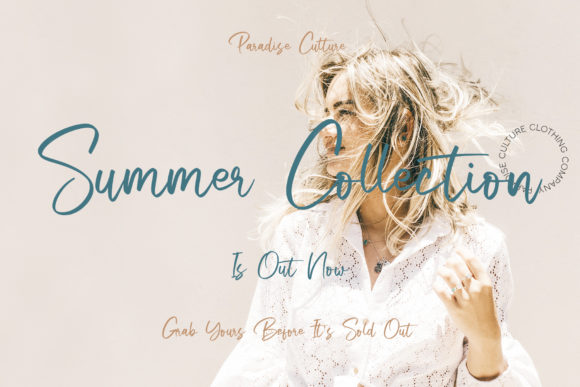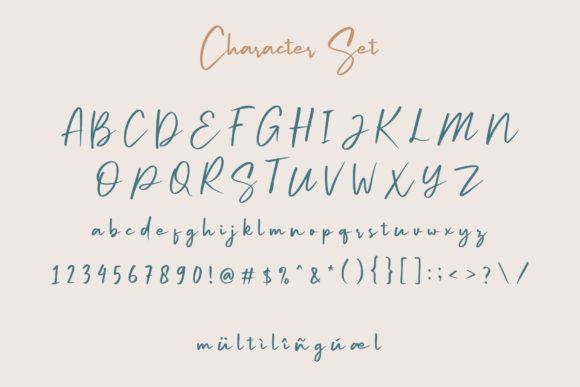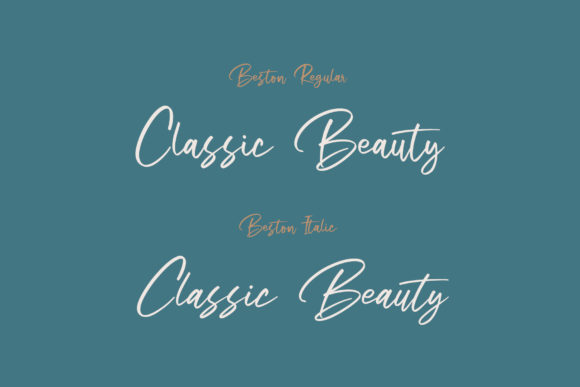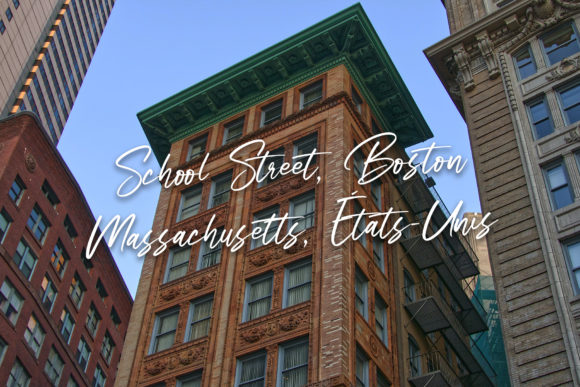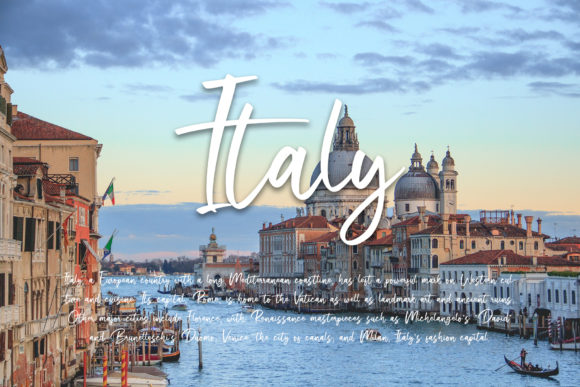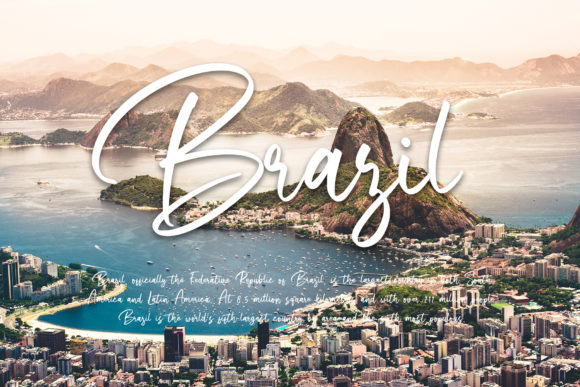
The Sweet Charm of Beston Font: A Designer’s Delight
I’ll never forget the time I was working on a wedding invitation project, and my client asked for a font that was “sweet, romantic, and playful.” I scoured the internet, tried out countless fonts, but nothing seemed to fit the bill. That was until I stumbled upon Beston Font. This beautiful, cursive handwritten font has been a game-changer for me, and I’m excited to share its charm with you! 😊
An Honest Review of Beston Font
- 💕 The sweet and gentle feel of Beston Font makes it perfect for projects that require a touch of romance and whimsy.
- ✅ Its cursive script is beautifully legible, even at smaller font sizes.
- 🌈 The font comes with a range of OpenType features, including glyphs and stylistic alternates, which allow for endless creative possibilities.
- 👍 Beston Font is incredibly versatile and can be used for a variety of design projects, from wedding invitations to branding and packaging.
While Beston Font is an amazing font, there are a few things to keep in mind:
- 🤔 The font may not be the best choice for body text or long blocks of text, as its cursive script can be a bit challenging to read in large quantities.
- ⚠️ Some users may find that the font’s sweetness and playfulness may not be suitable for more formal or corporate projects.
The Story Behind Beston Font
Beston Font was designed by a talented type designer who wanted to create a font that captured the essence of sweet, handwritten script. Inspired by the beauty of handwritten letters and the romance of vintage typography, Beston Font was born. With its gentle curves and playful feel, it’s no wonder this font has become a favorite among designers and crafters alike!
Q: What type of projects is Beston Font best suited for?
A: Beston Font is perfect for projects that require a touch of romance, whimsy, and playfulness, such as wedding invitations, Valentine’s Day cards, and social media graphics.
Q: Is Beston Font available in different weights or styles?
A: Currently, Beston Font is available in a single weight. However, some font foundries may offer variations or extensions of the font, so be sure to check their website for more information.